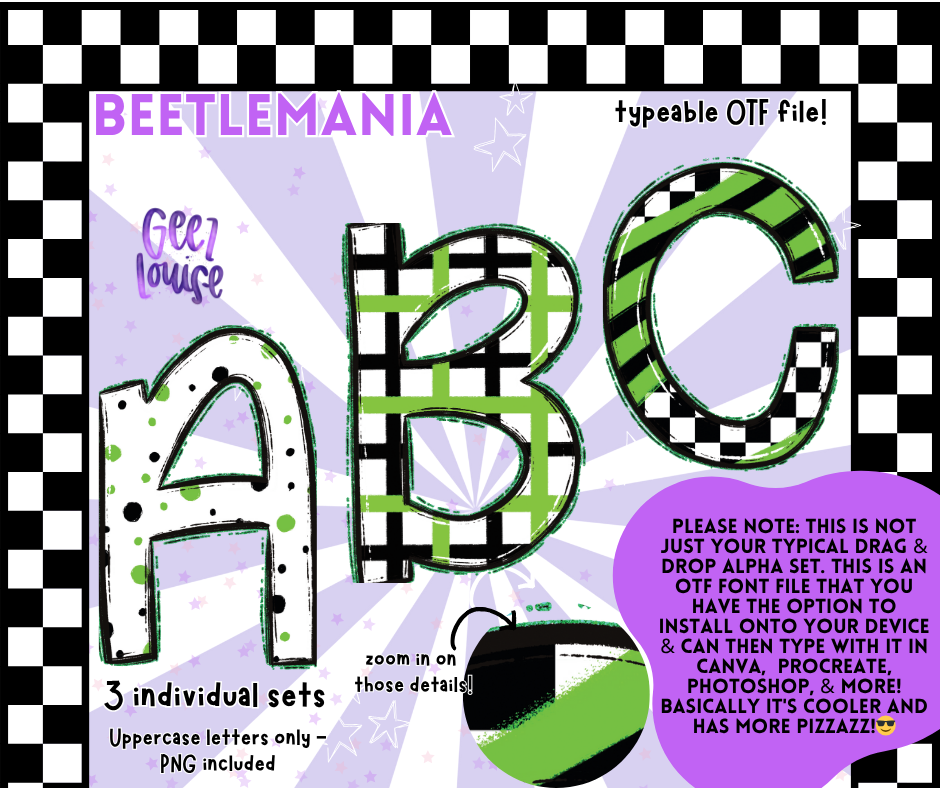
Beetlemania – Grunge Green Check OTF Font with PNGs (Uppercase Only)
Green, gritty, and gloriously grungy—Beetlemania is here to haunt your fonts in the best way. This spooky-cute alpha is giving striped chaos, checkerboard drama, and polka-dot attitude, all wrapped into one typeable OTF file.
🖤 3 individual designs in one font
✏️ Uppercase letters only
Perfect for creepy season graphics, alt-style designs, or anything that needs a splash of strange and a whole lot of sass.